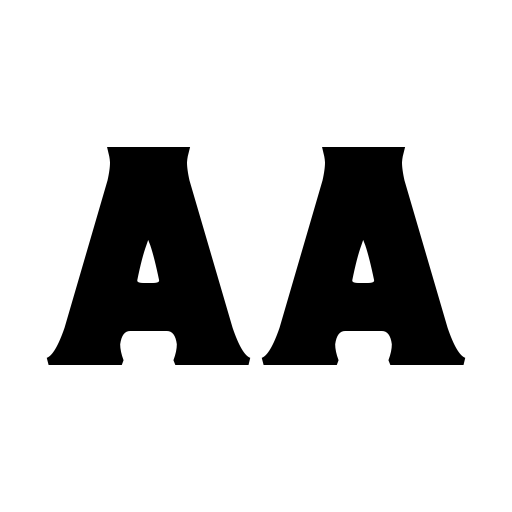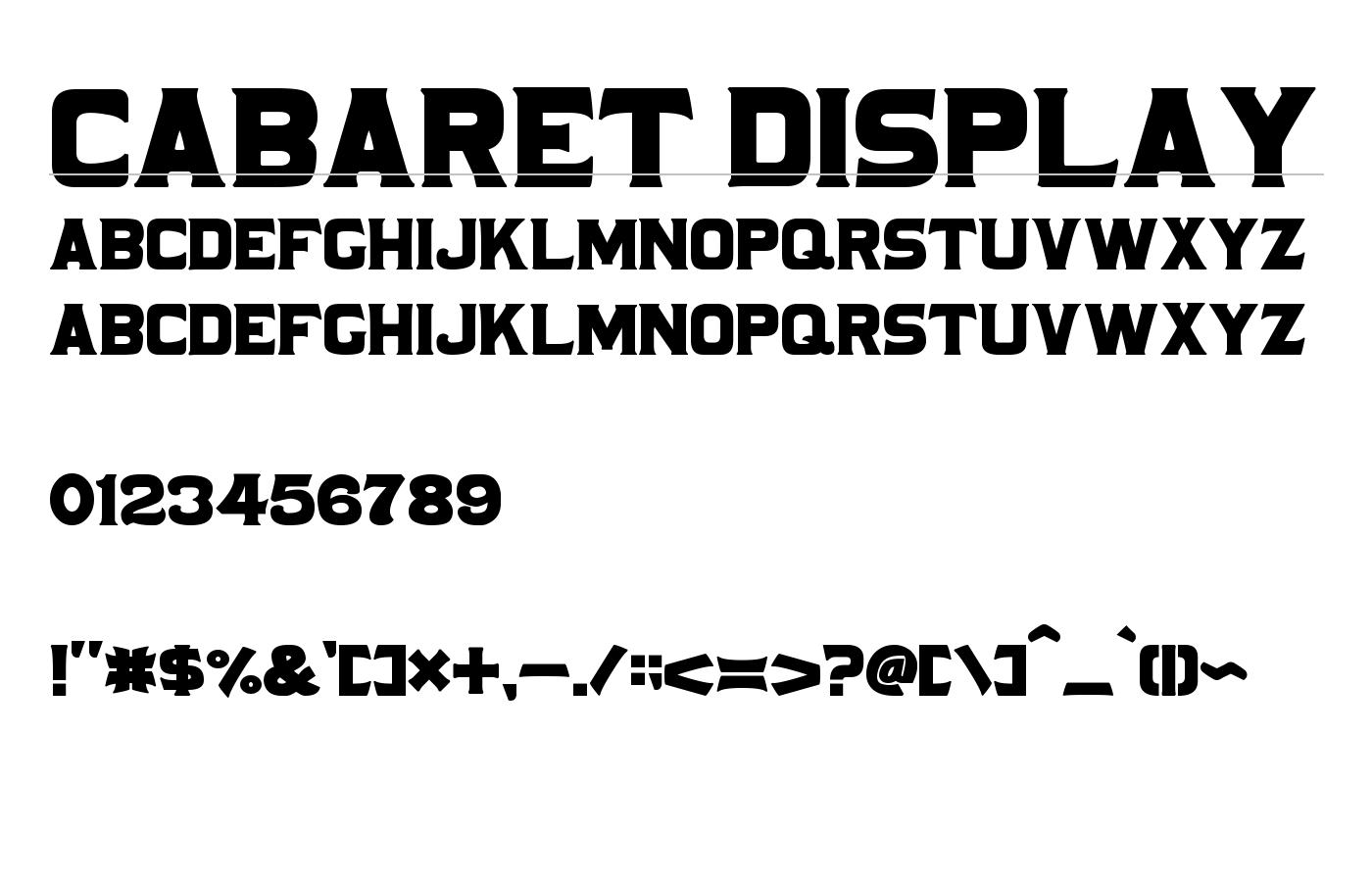
Cabaret Display is a bold, condensed serif font with a vintage flair, featuring strong contrast and thick, bracketed serifs that give it a sturdy yet stylish presence. Its unique letterforms, such as the sharp leg on the R and prominent Q tail, make it perfect for eye-catching headlines, logos, and posters that need a touch of classic elegance combined with modern impact. This font works especially well in fashion, entertainment, and branding contexts where a bold statement is key.
Cabaret Display Font
About Cabaret Display Font
| Font family | Cabaret Display Font |
| Designer | Joseph Dawson |